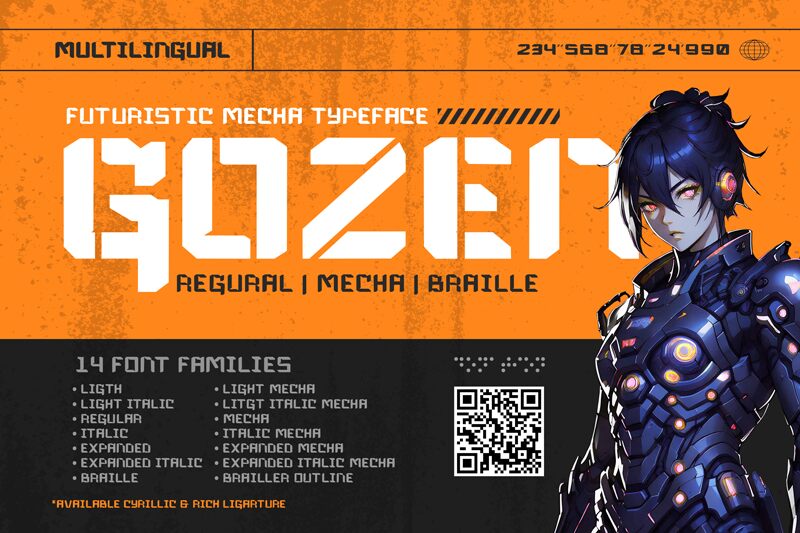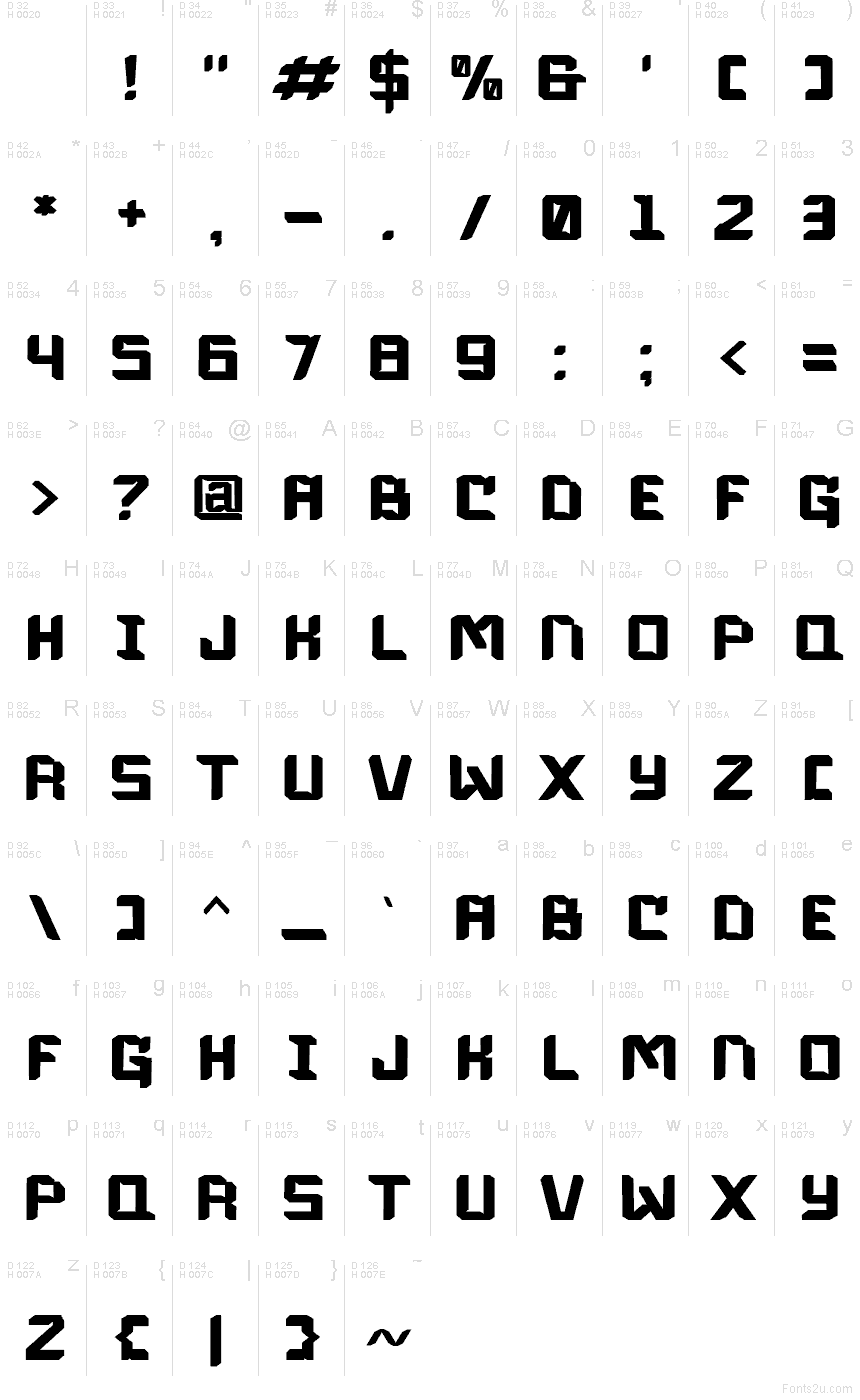
Gozen font by Mofr24 is a free futuristic display typeface that feels carved from matte metal, with chunky, angular strokes and sharp inner cuts. Its family of 14 styles and the wild stencil/mecha variant give you knobs to dial from industrial aggression to sleek sci‑fi polish. Add in Braille support for both Latin and Cyrillic, and you’ve got a rare blend of visual impact and inclusive design in one tight, blocky system.
Using Gozen, you can push bold gaming interfaces, esports logos, tech branding, experimental posters, album covers, and streetwear graphics into full-on mech territory. The letterforms lock together like panels on a robot chassis, creating dense wordmarks that read fast and hit hard on-screen. This free font shines when set large; pair it with a clean geometric sans for body copy to keep your layouts readable while Gozen does the heavy lifting in headlines and logos.
Support Cyrillic and Braille Pattern